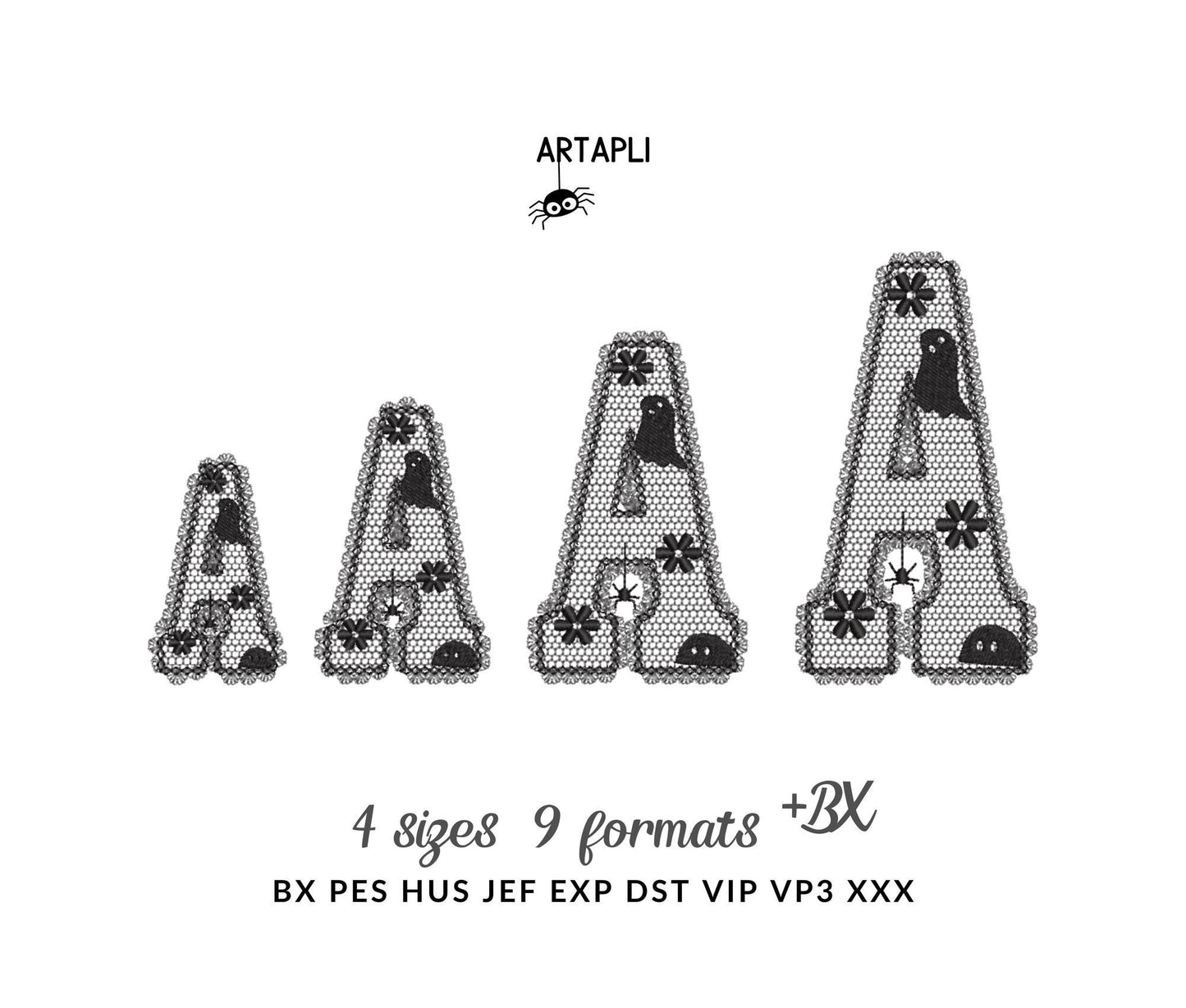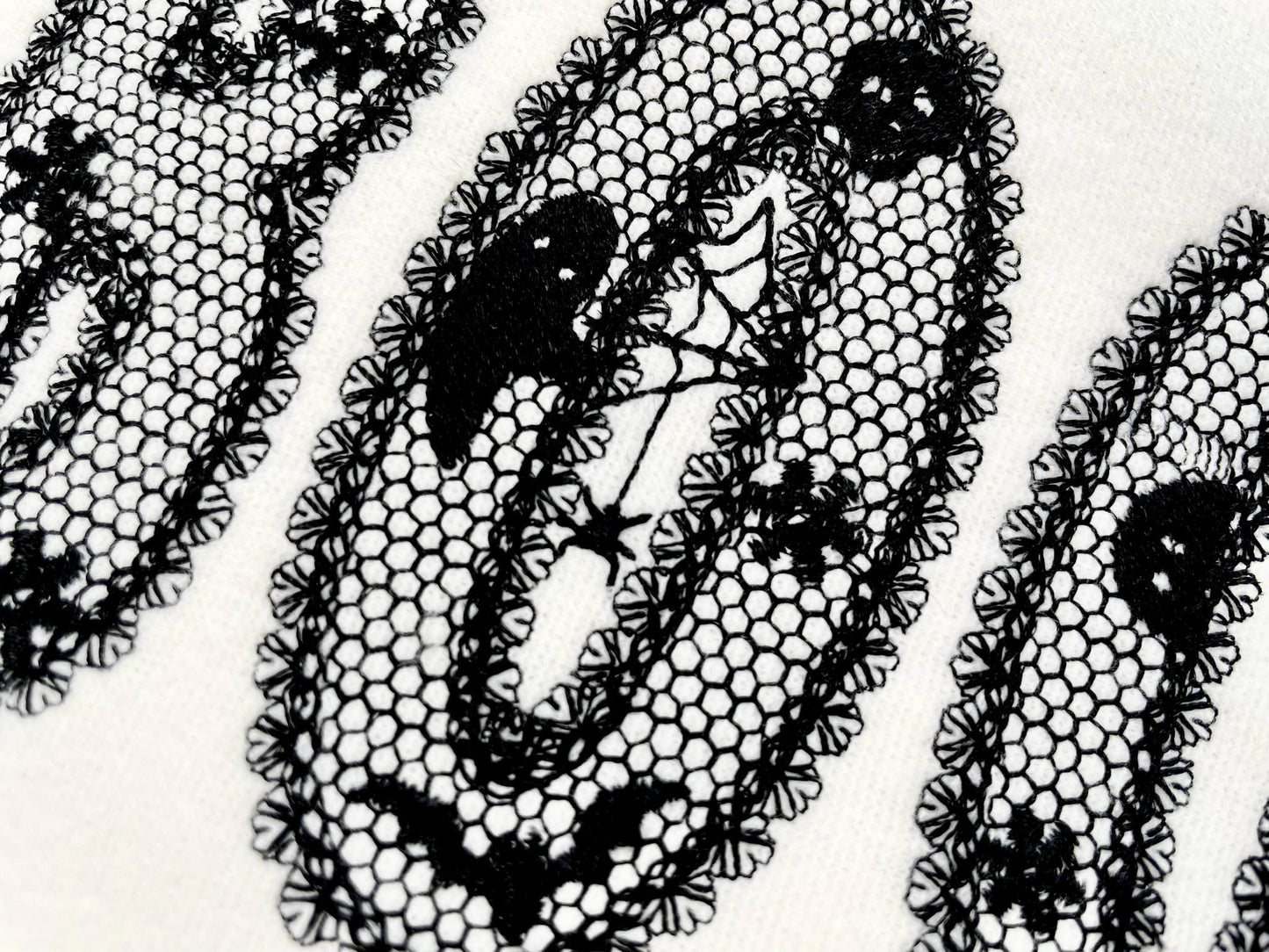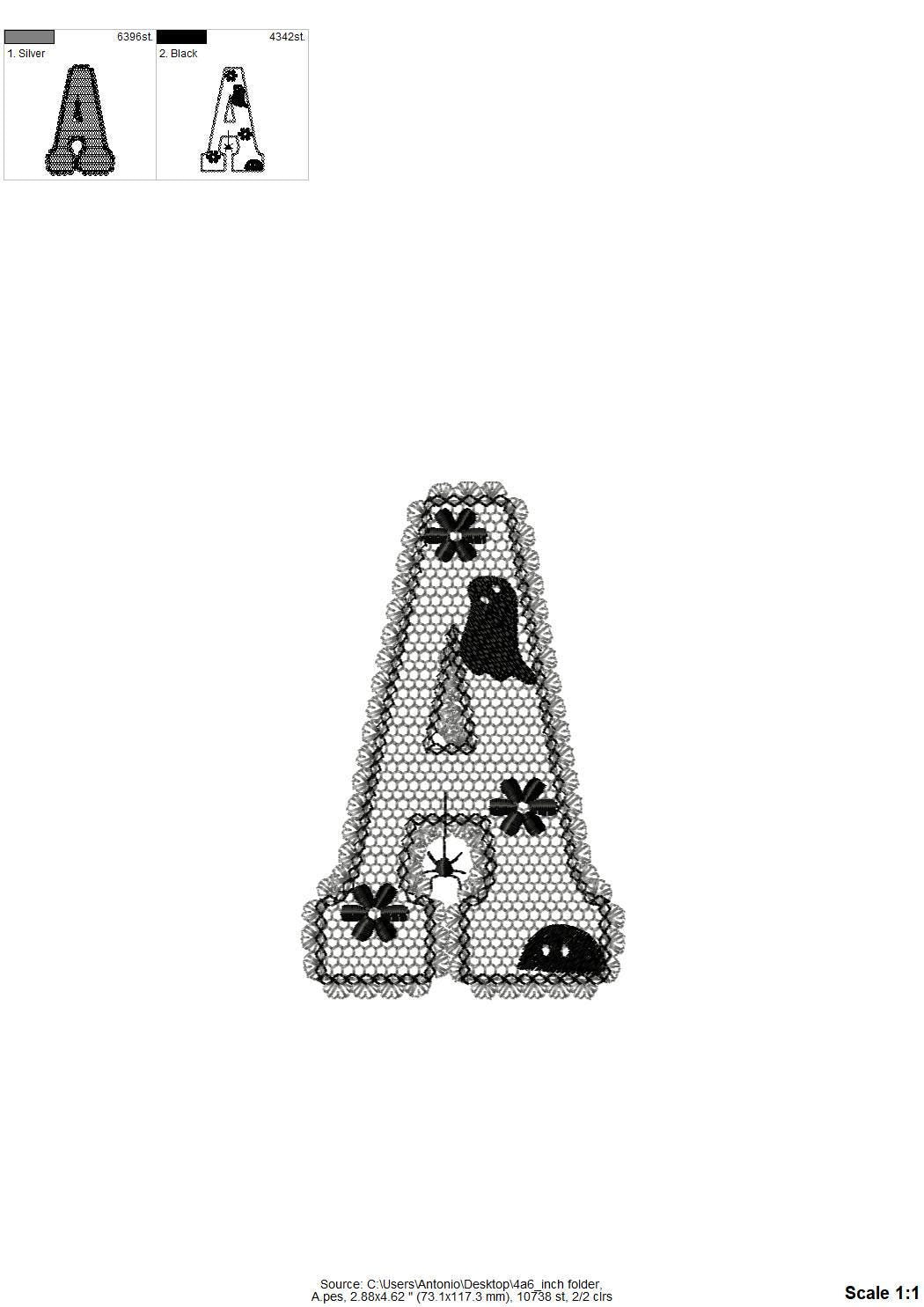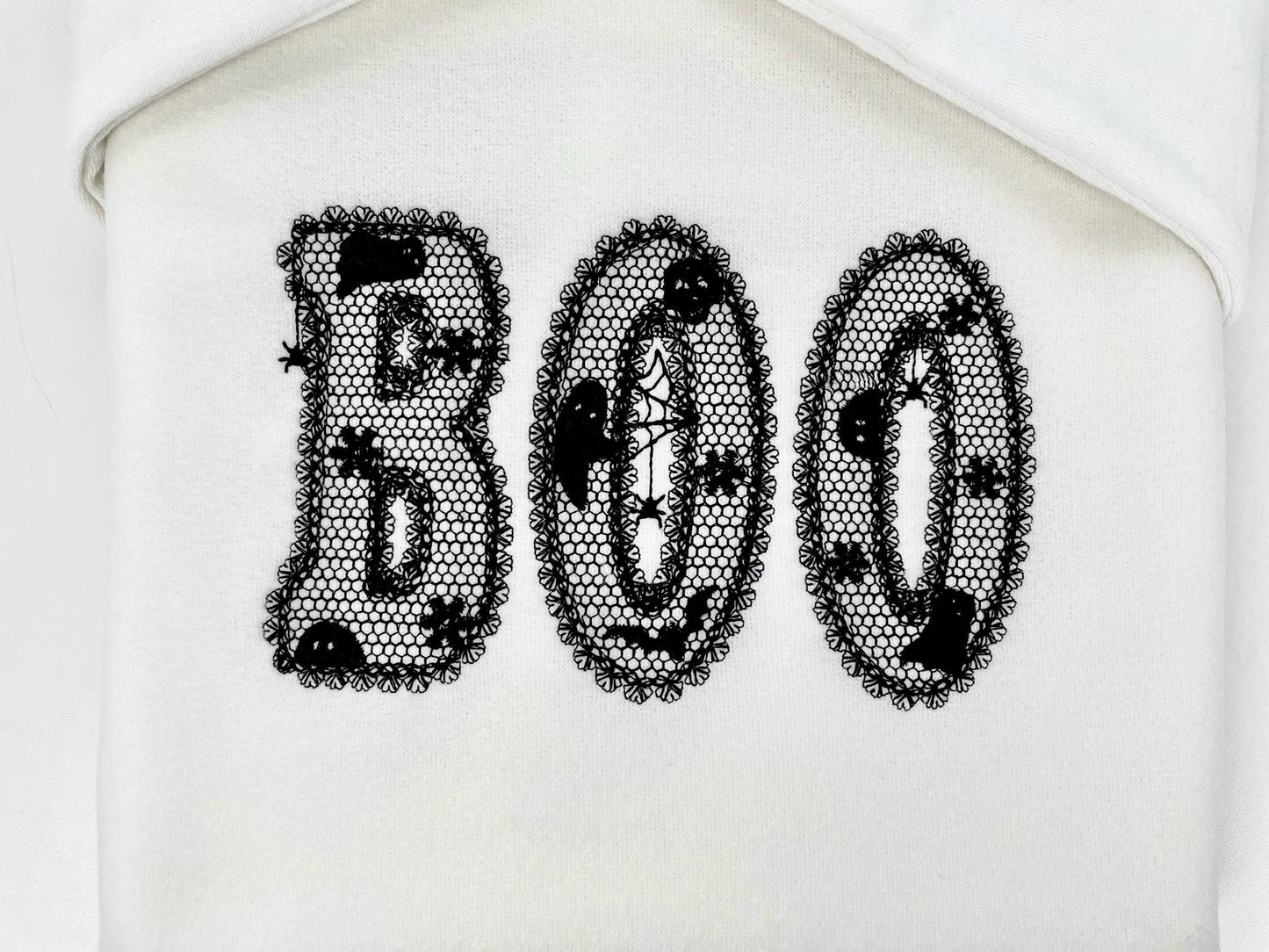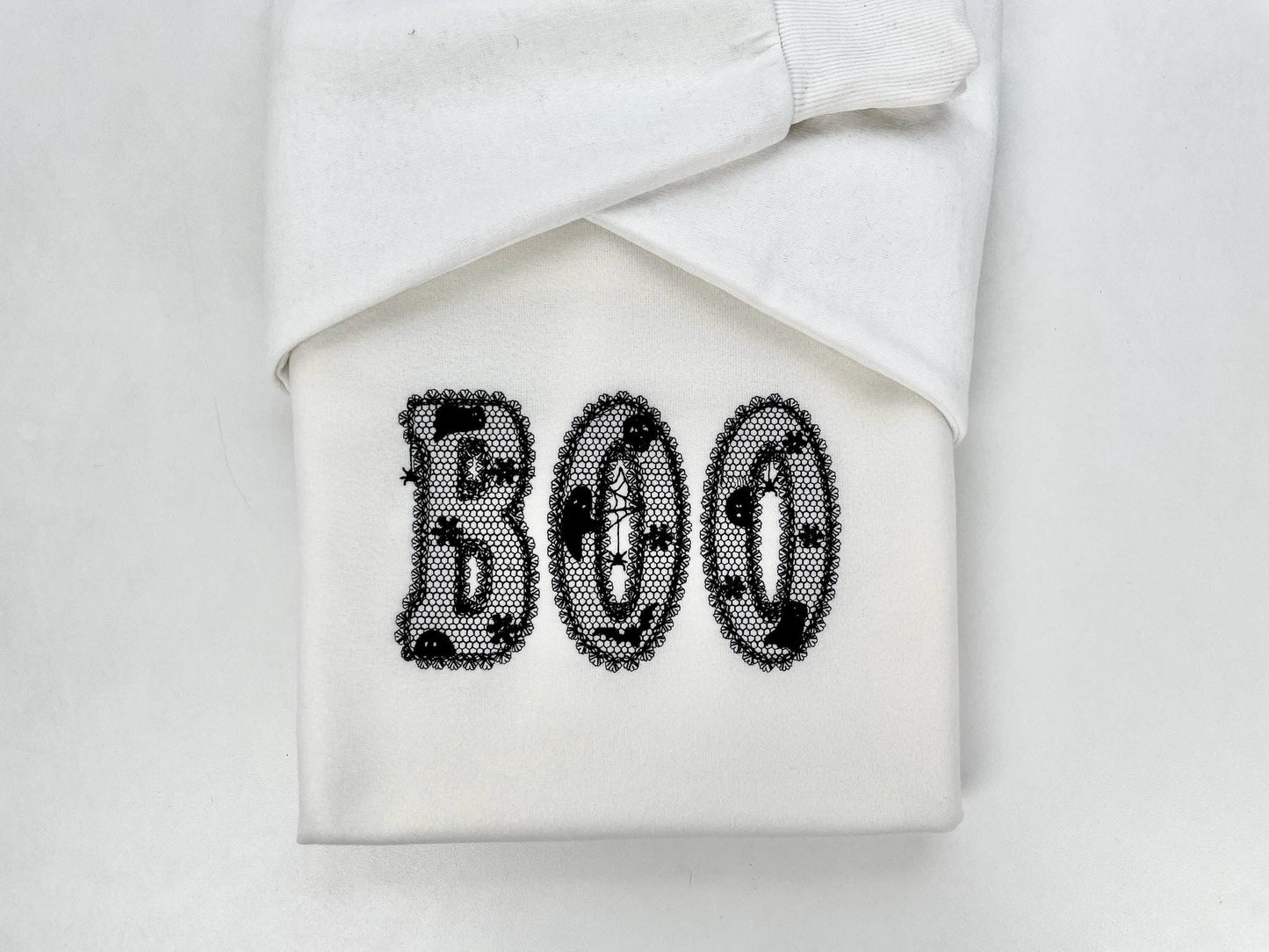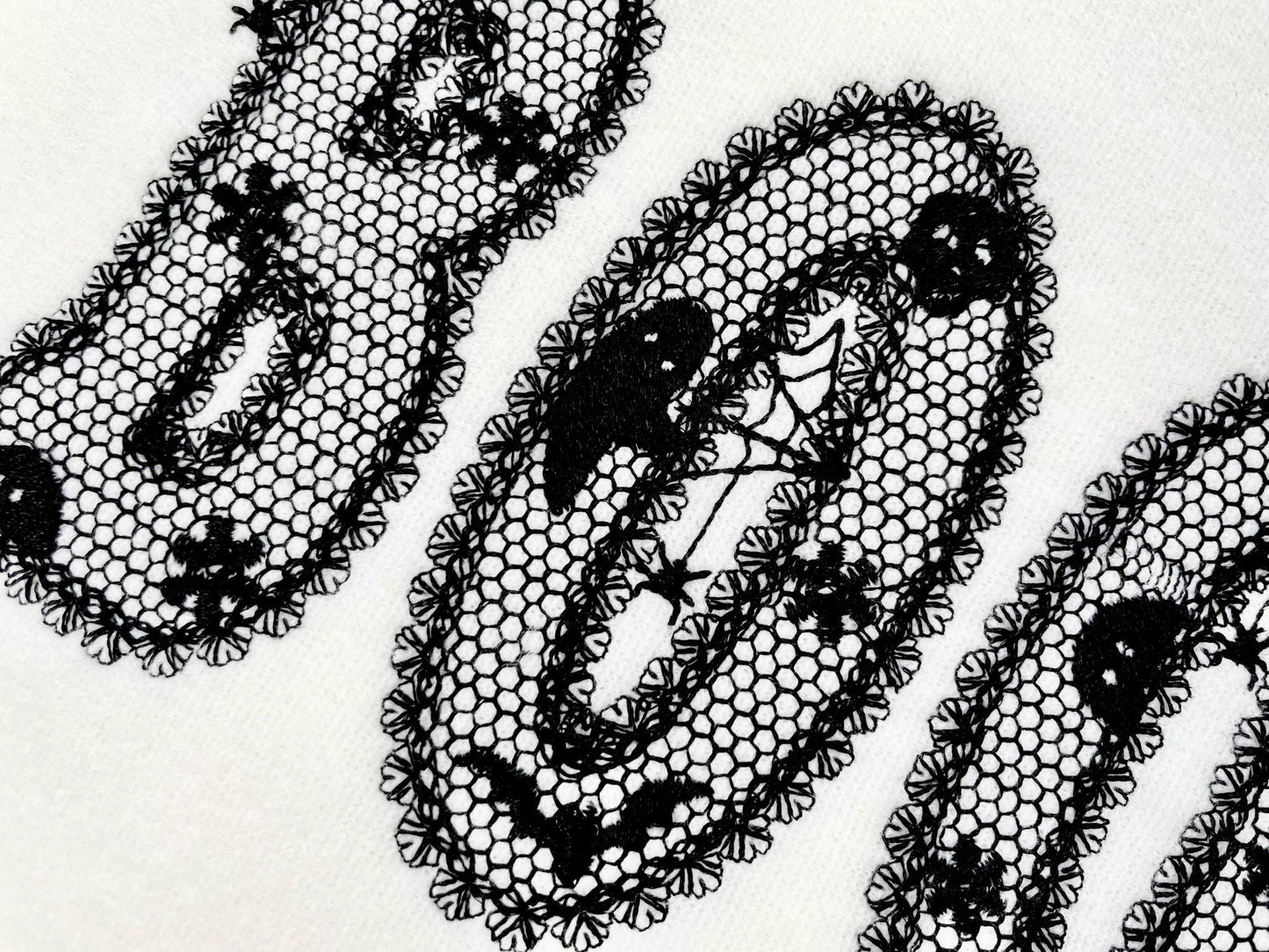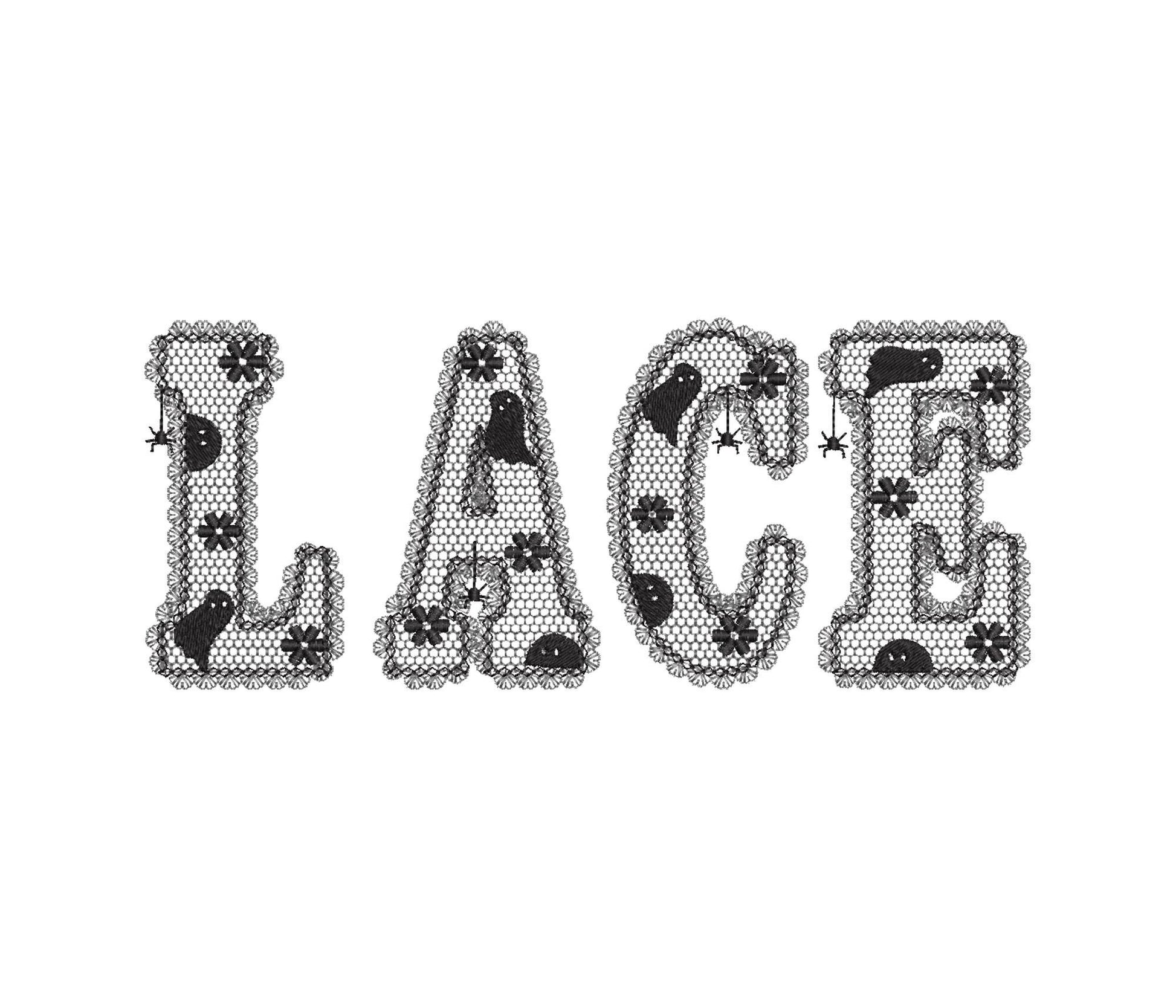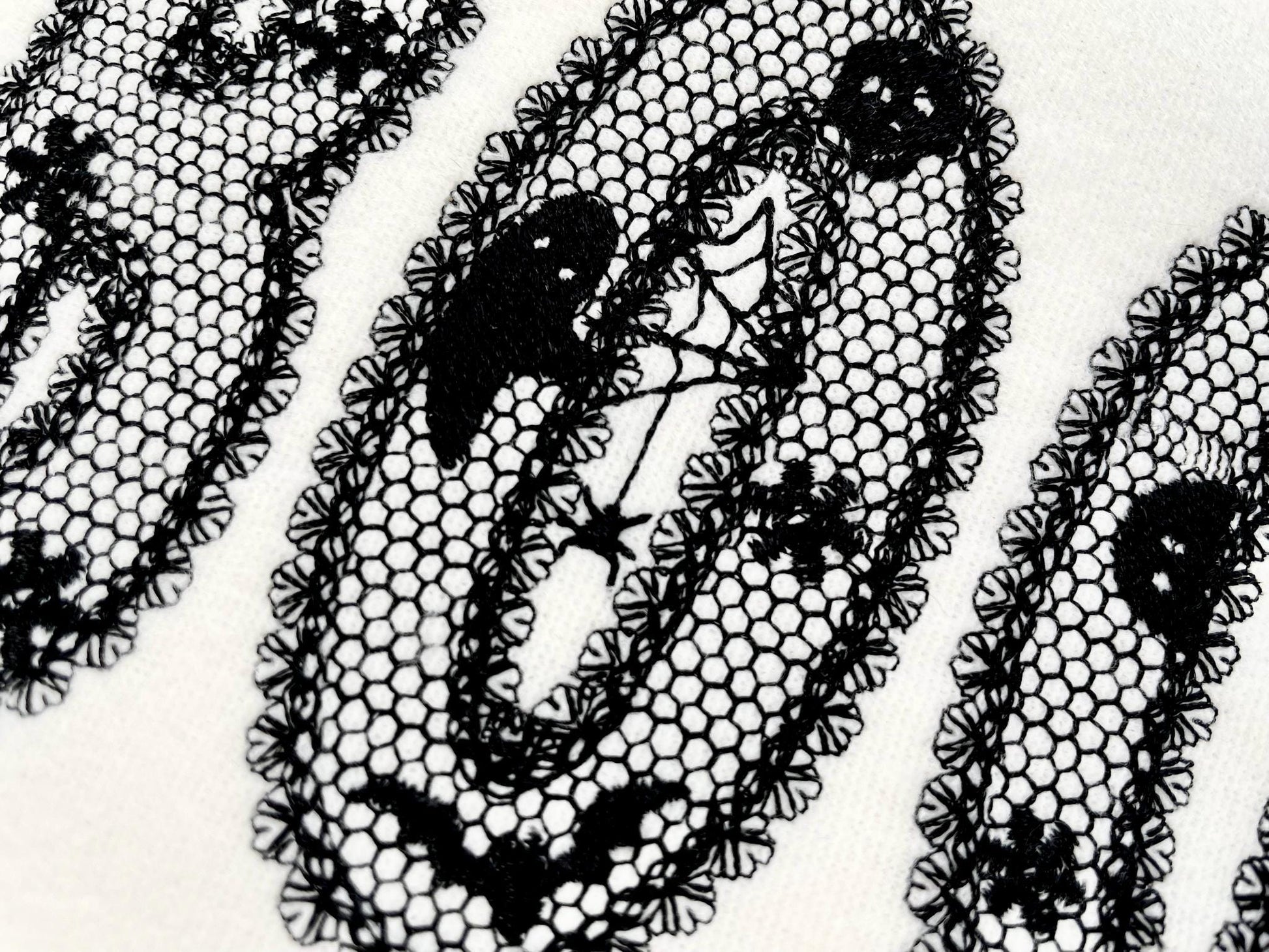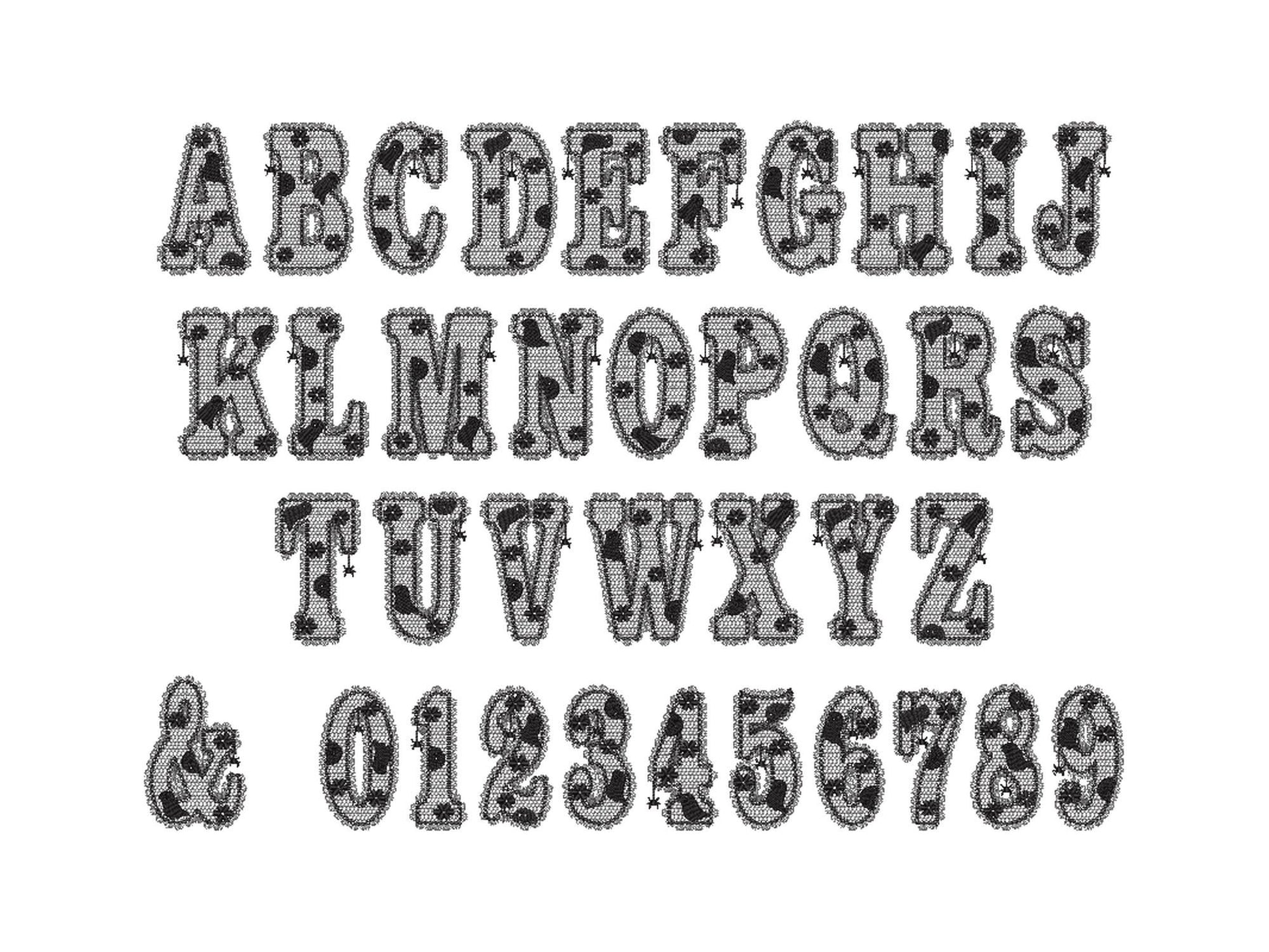
Or click to open the linkTwo lace edge Halloween fonts with a lacy floral pattern, a peeking ghost and a spider. Spooky and pretty for shirts, pillows and treat bags.
Two slightly different fonts in matching sizes. Uppercase letters A to Z, numbers 0 to 9 and an ampersand, in four large sizes: 3, 3.7, 4.6 and 5.7 inches. The lace pattern and edge are part of the stitching, and the fabric shows through.